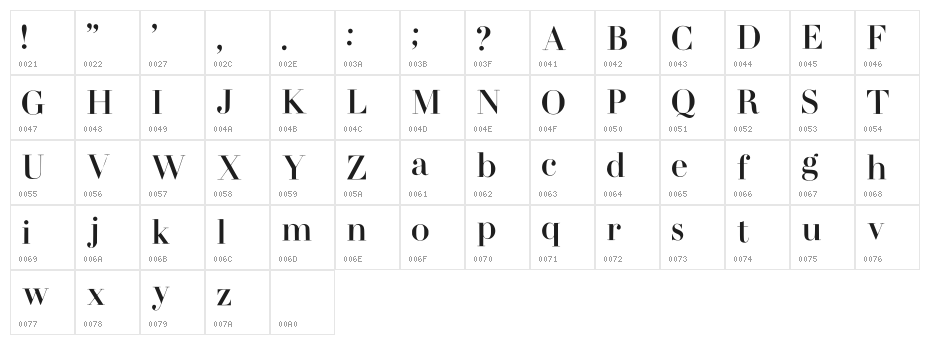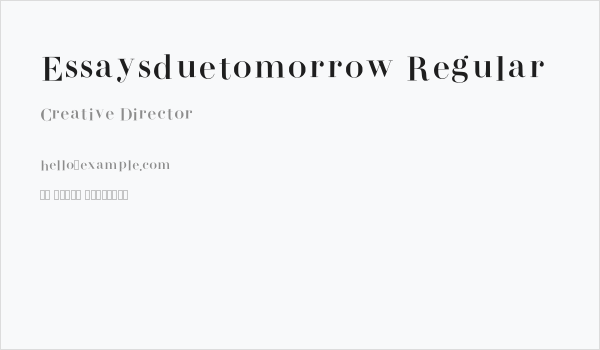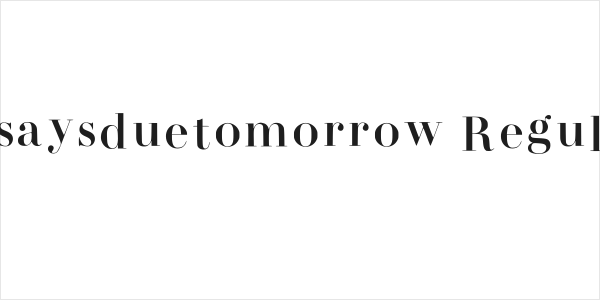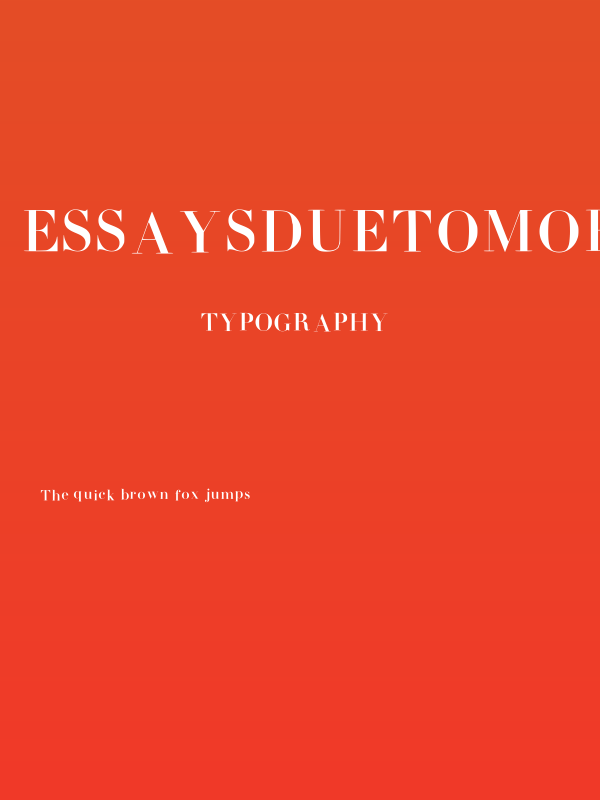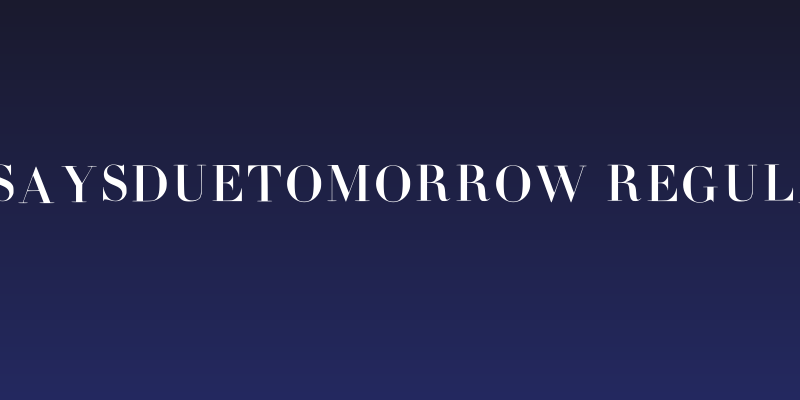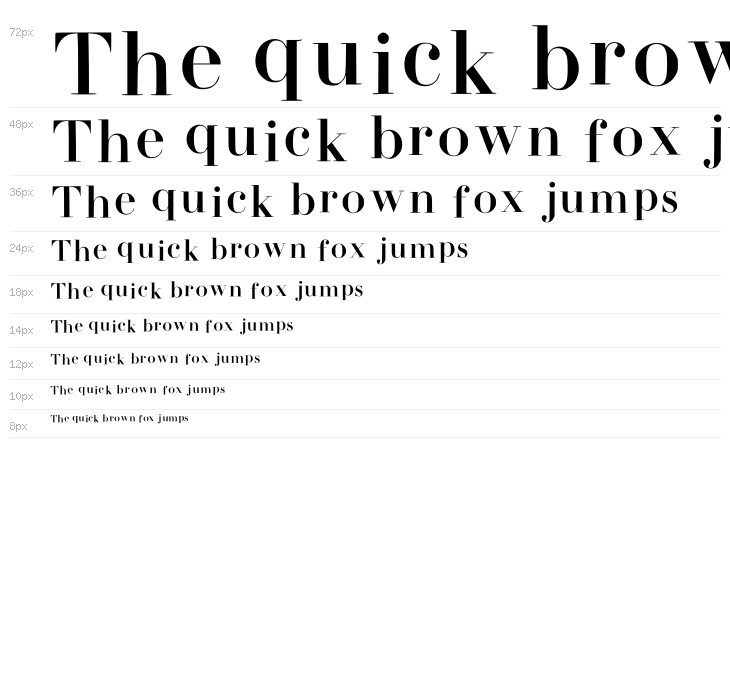
Essaysduetomorrow Regular Font
Essaysduetomorrow Regular Description
This font features a sophisticated and elegant design, characterized by its high contrast between thick and thin strokes. The serifs are sharp and pronounced, giving it a classic yet modern appeal. The uppercase letters are tall and commanding, while the lowercase letters maintain a harmonious balance with a slightly rounded appearance. The numerals are consistent with the overall style, ensuring readability and aesthetic appeal. Special characters are thoughtfully designed to complement the alphabet, making this typeface versatile for various applications.
| Proposed Projects | Ideal for editorial design, luxury branding, invitations, and high-end product packaging. |